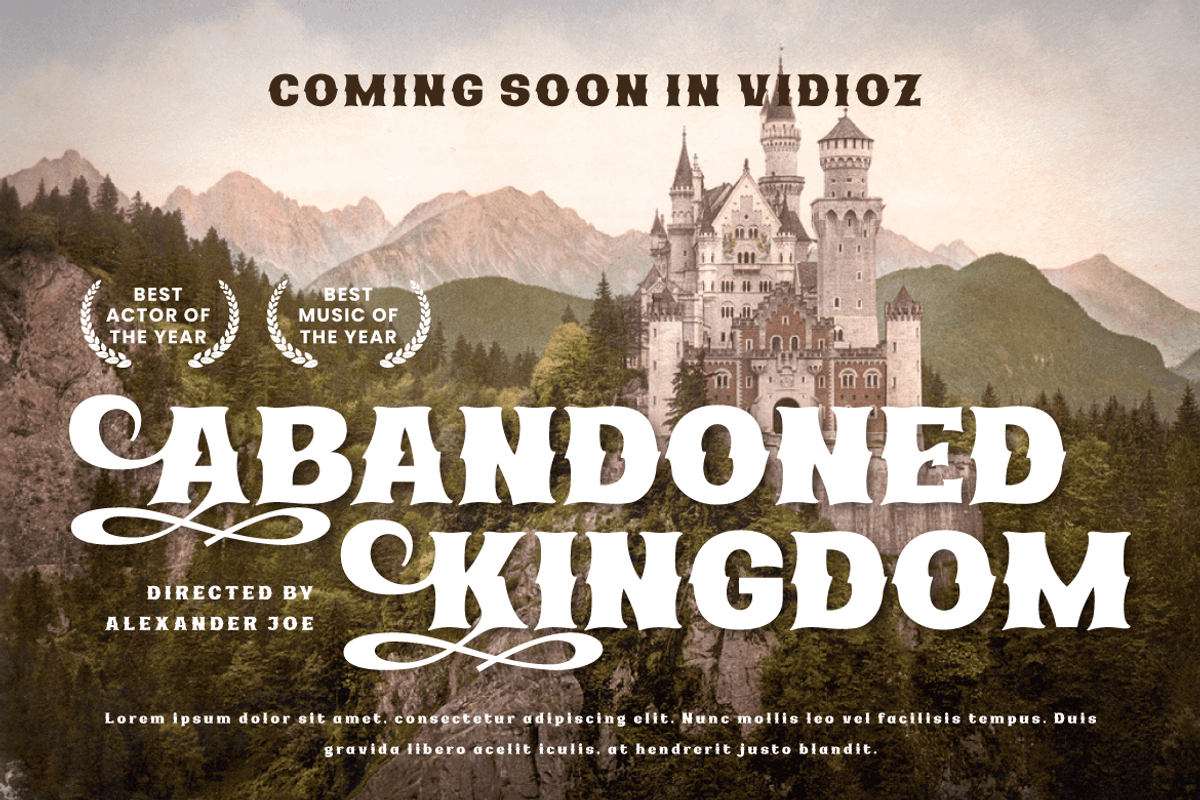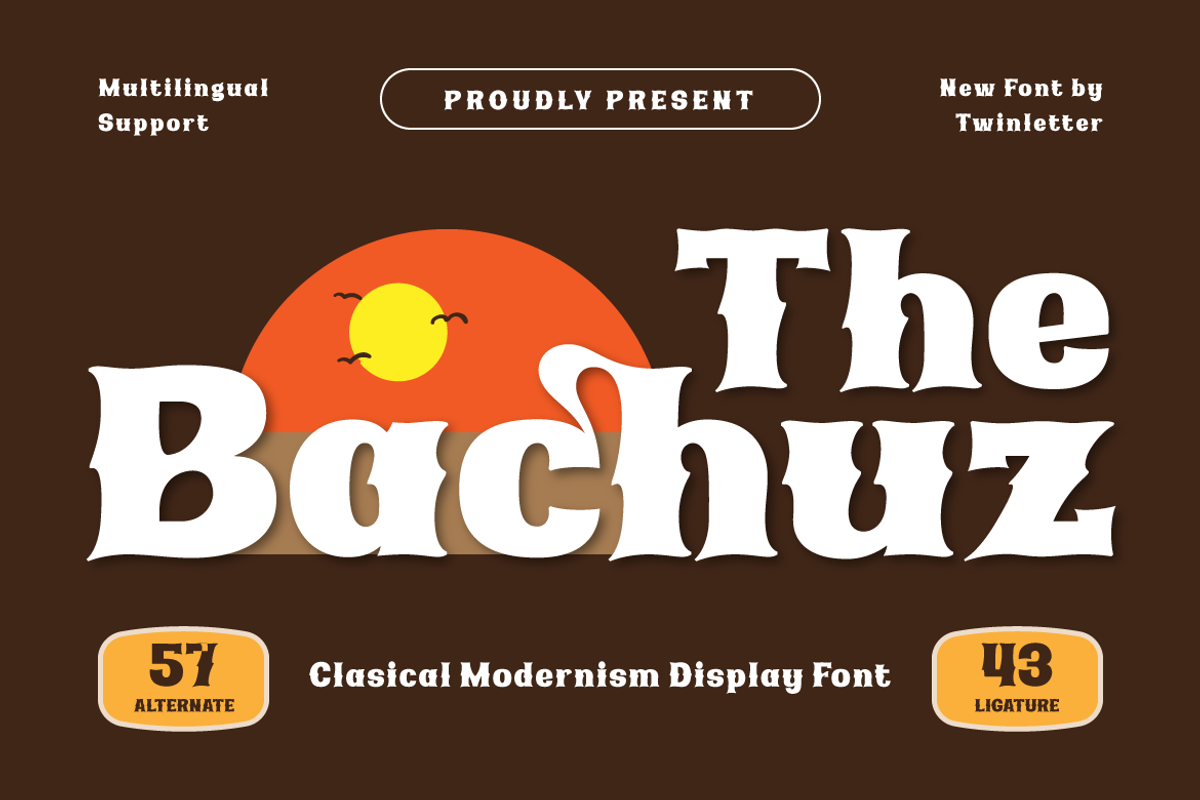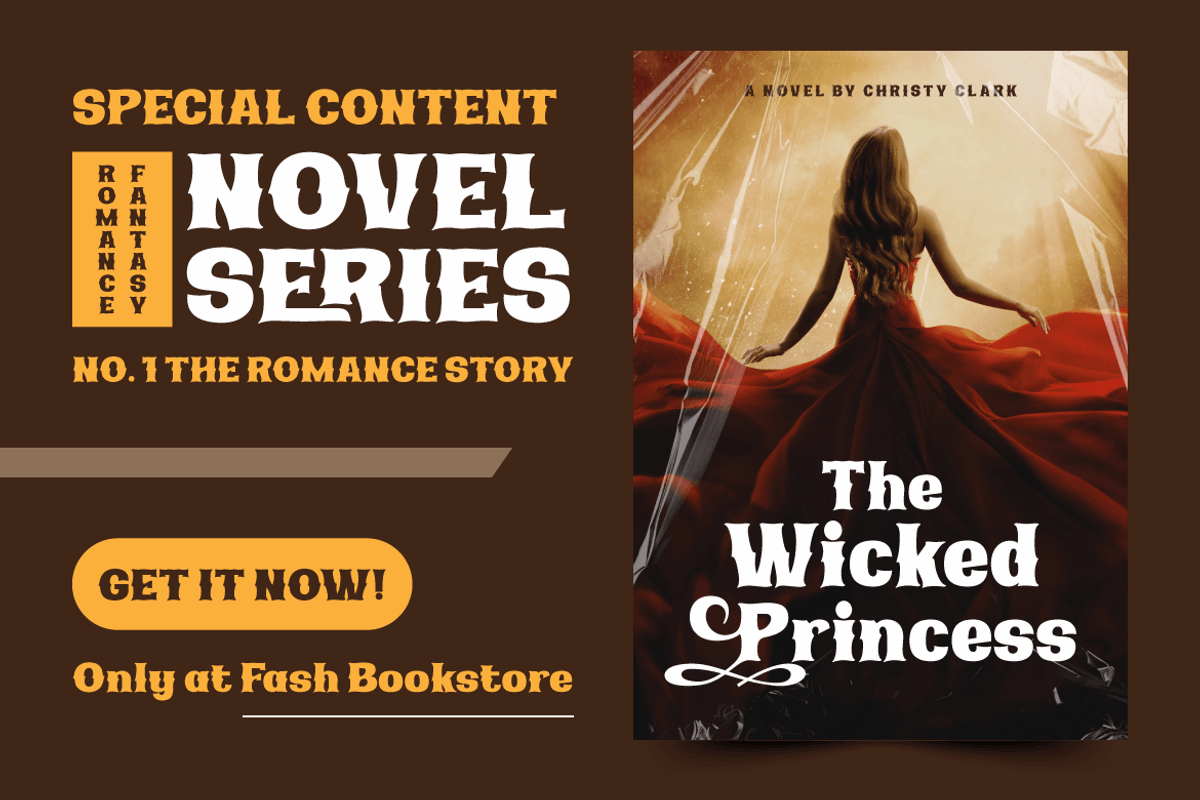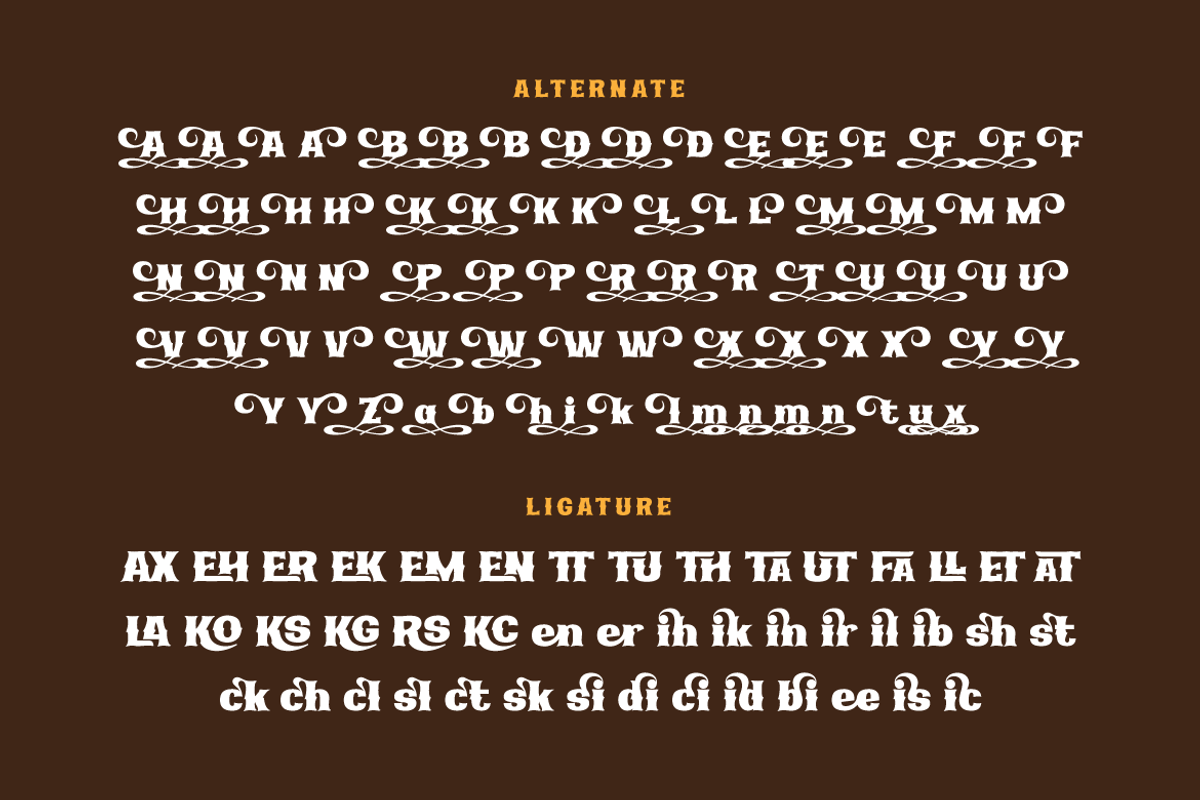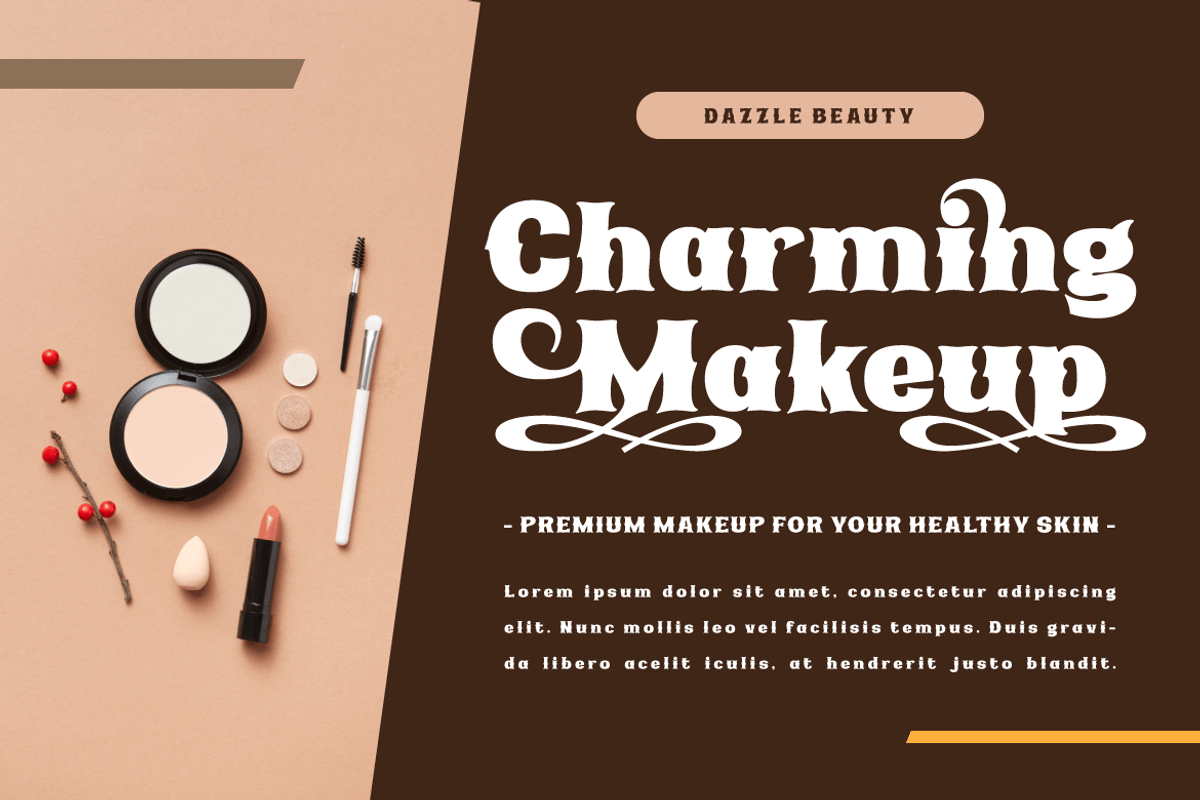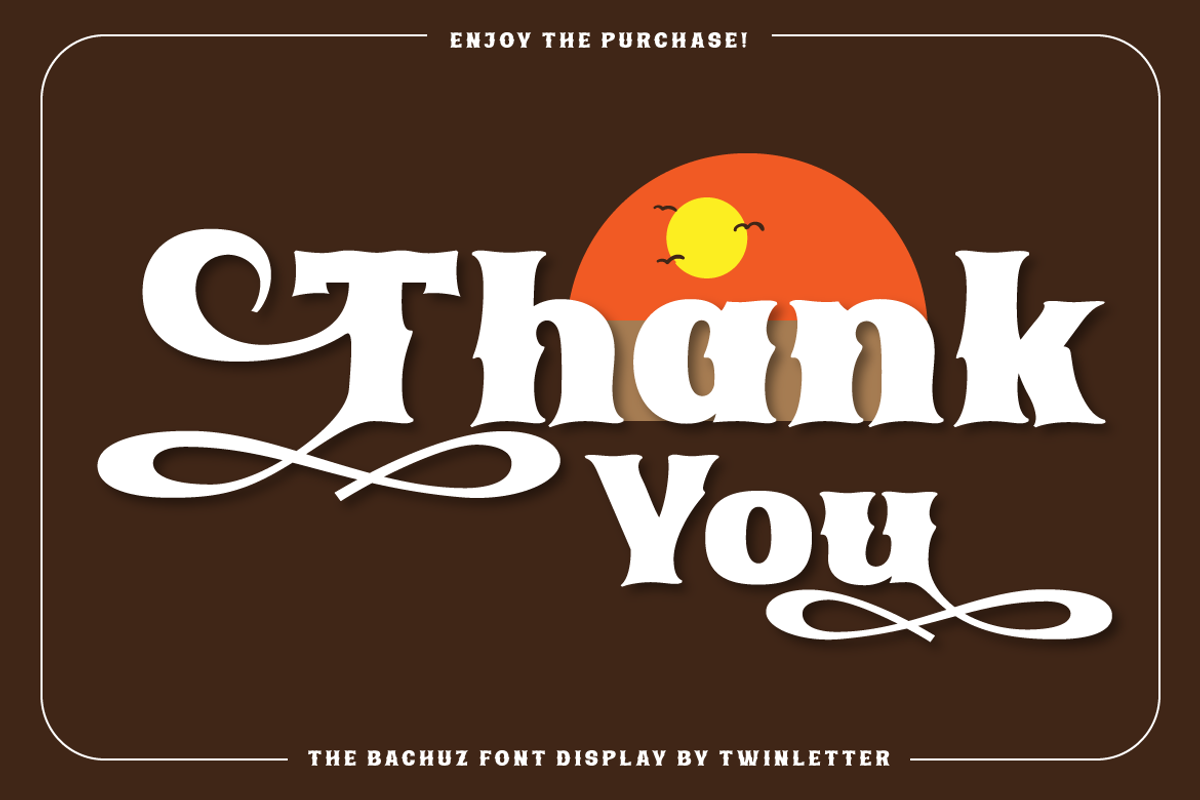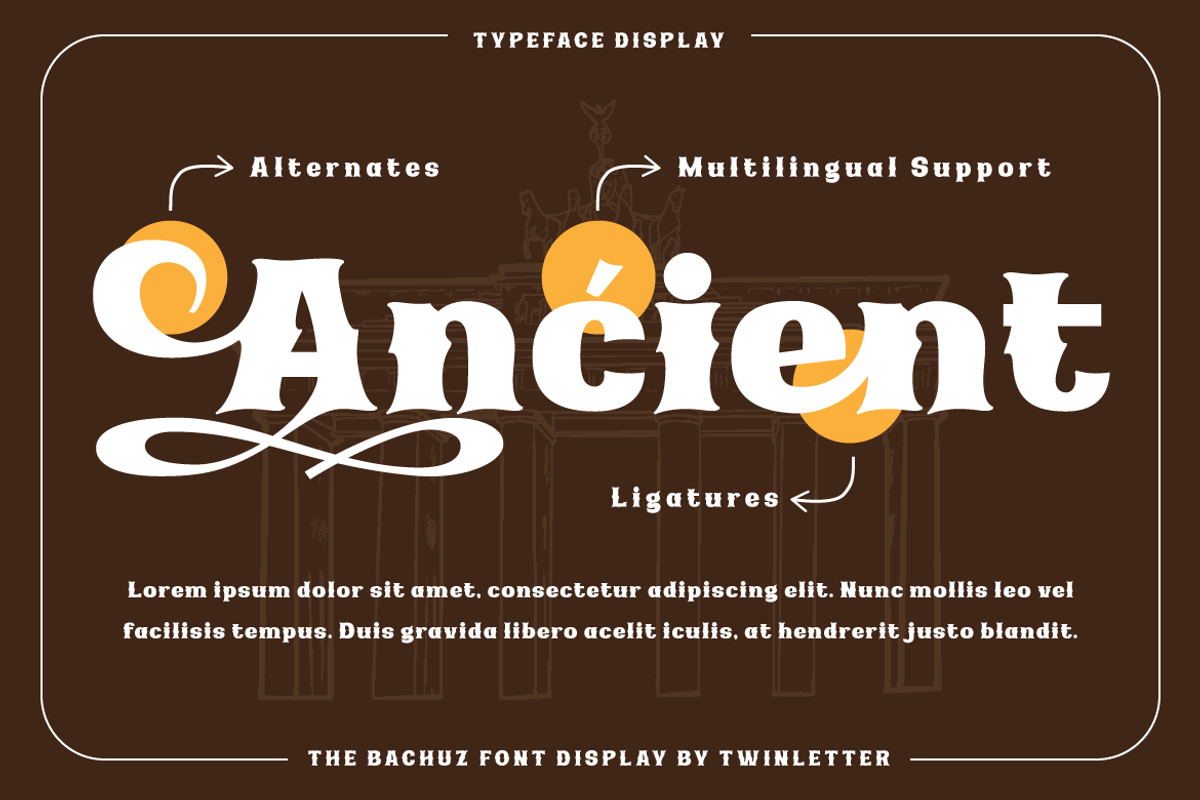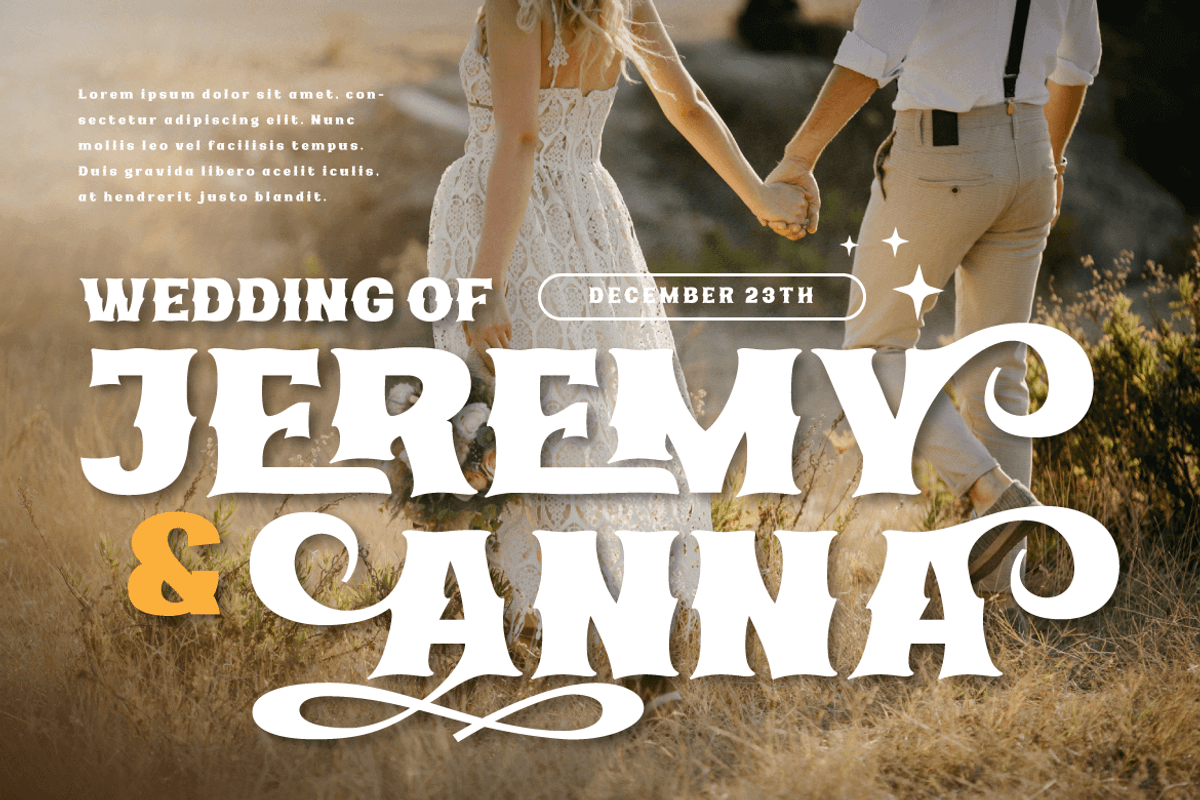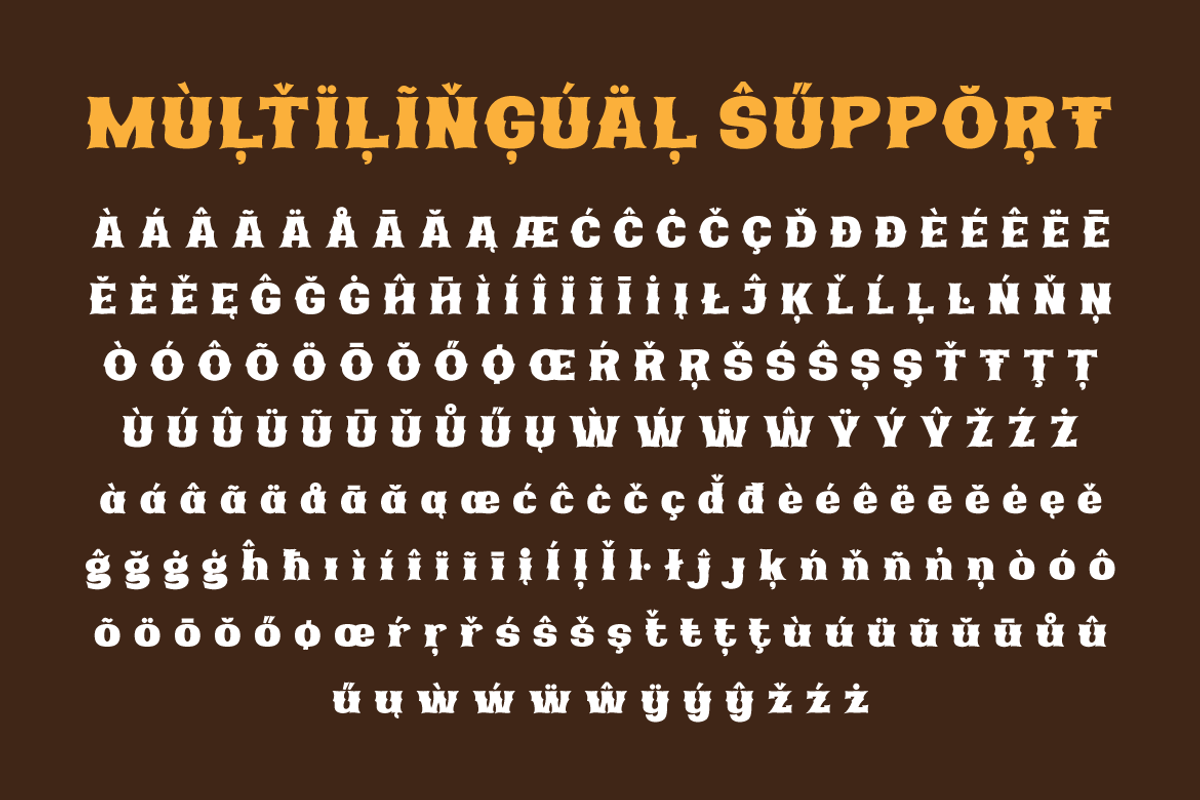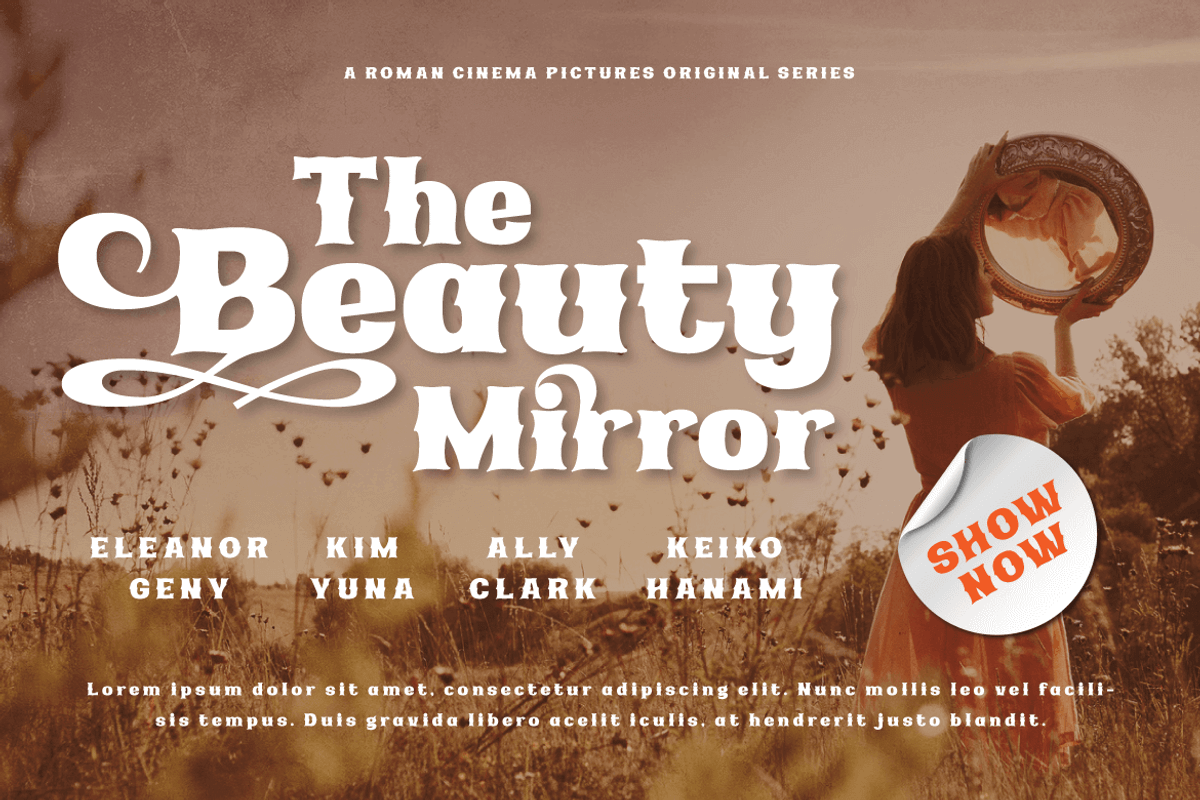
The Bachuz | Serif Classic Modernism
Welcome to a world of elegance and beauty with The Bachuz, a classic serif font that exudes timeless charm. Created as the perfect solution for projects with a classic modernist theme, The Bachuz will bring an alluring touch to your designs. With a stunning serif style, The Bachuz gives each letter softness and perfection. Each character is meticulously sculpted to convey a timeless classic feel. This font is a great choice for creating elegant, demure, and stylish designs.
Not only that but The Bachuz is also equipped with special features that will increase your creativity. Thanks to the ligatures and alternate characters, you can combine letters harmoniously, create great variations and customize the design to your liking. Apart from that, this font also supports multiple languages, allowing you to easily reach a global audience.
With The Bachuz, you will find beauty in every detail. Show the alluring charm of classic modernism and present an elegant and classy design. Don’t miss the opportunity to own The Bachuz and create unforgettable creations for your potential customers.